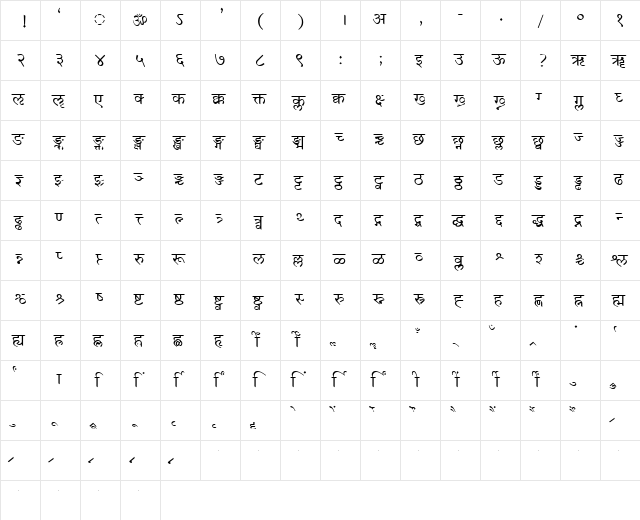
SD-TTSurekh Normal
Design Context for SD-TTSurekh Typeface
SD-TTSurekh offers clean, dependable letterforms without strong stylistic allegiance, making it a practical choice for designers who need flexibility.